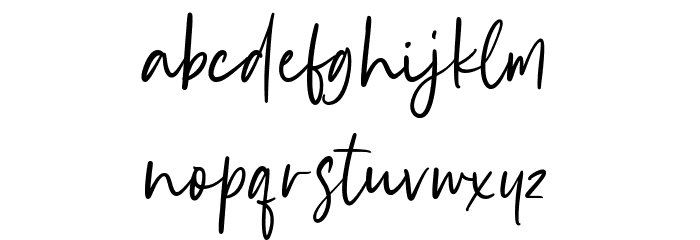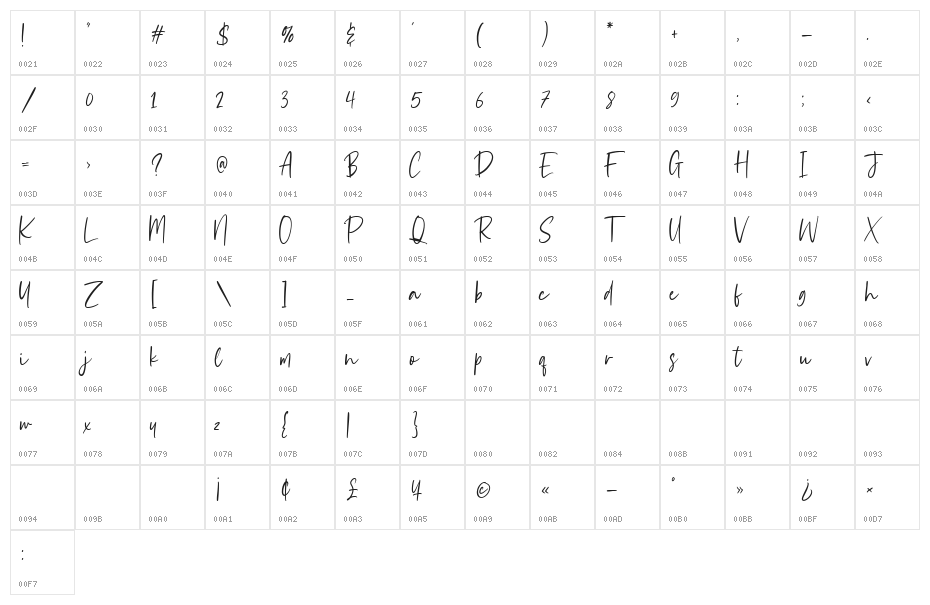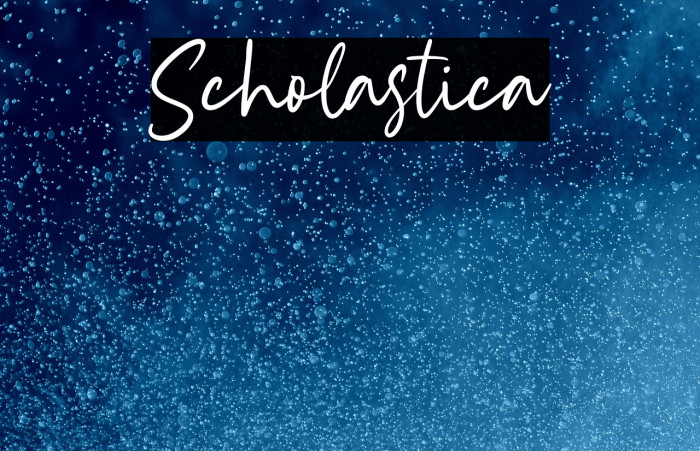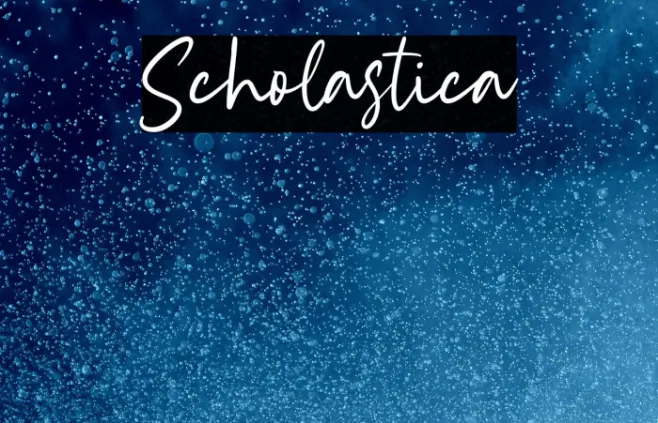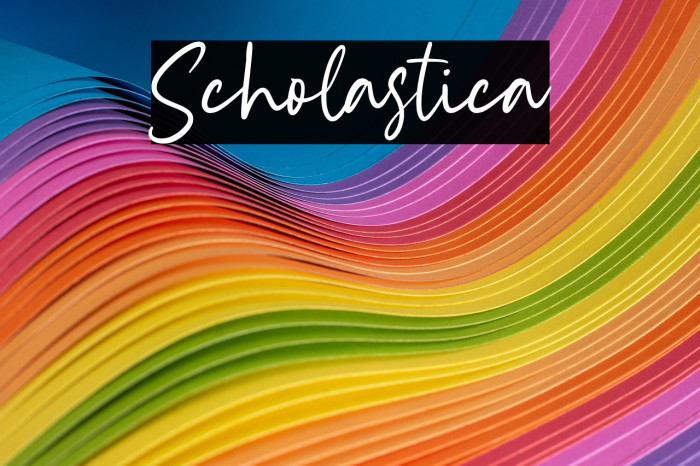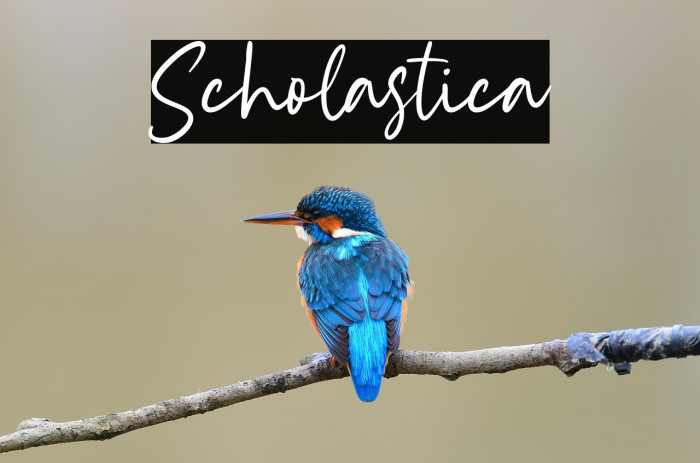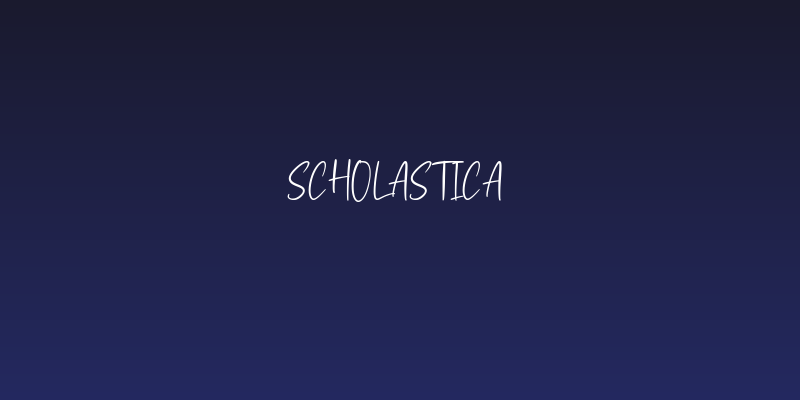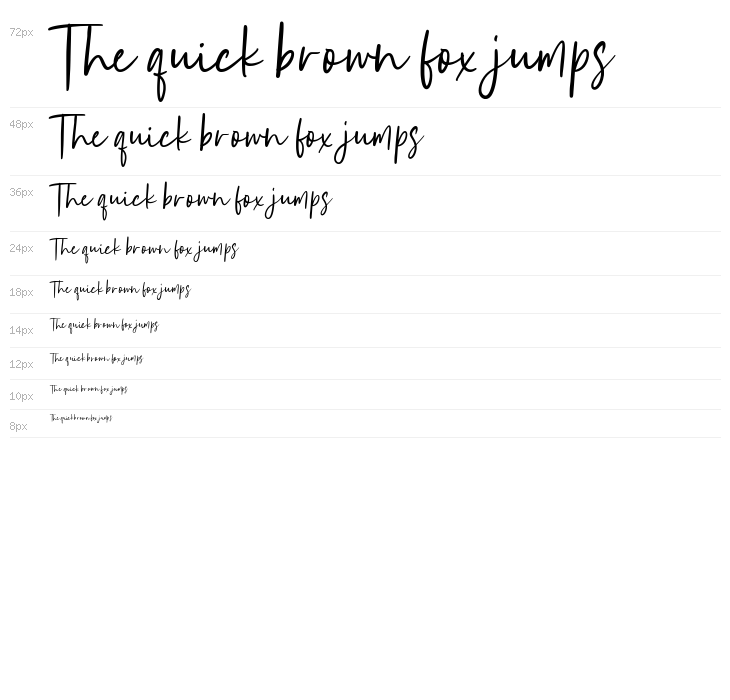
Scholastica Font
This font features a lively and expressive handwritten style, characterized by its fluid and dynamic strokes. The letters are slightly slanted, giving a sense of motion and energy. The uppercase letters are tall and elegant, while the lowercase letters maintain a consistent flow with a playful touch. The numerals and special characters complement the overall aesthetic, making it versatile for various design needs. The font's organic feel is perfect for projects that require a personal and approachable touch.
A lively handwritten font with fluid, dynamic strokes and a playful touch.
- Proposed Projects: Ideal for greeting cards, invitations, personal branding, and social media graphics.
- Use Case: Logos, Headlines, Invitations